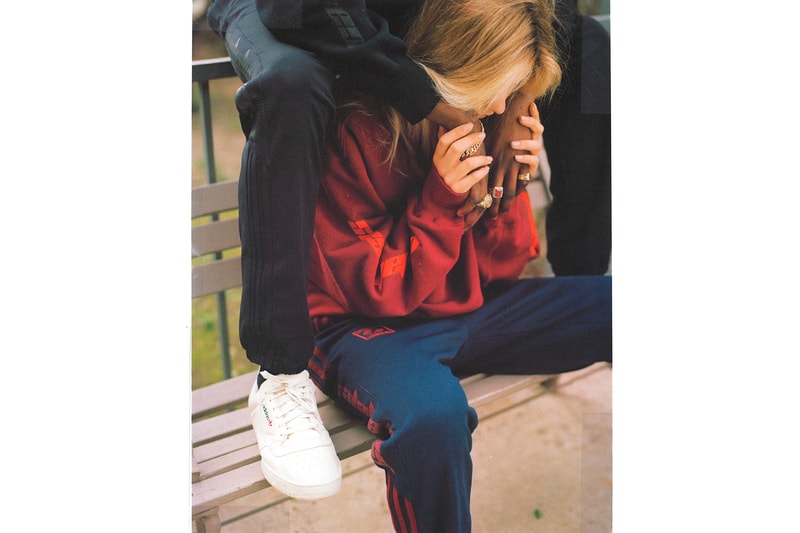
Adidas Calabasas Font . This font is a geometric sans serif font family that has been the basis for the adidas logo font. Create a text effect adidas blue space 3d with our online custom font generator. But as of right now, these. Archive of freely downloadable fonts. Rather, his feature a mysterious side detail in the form of a pagal font calabasas print, as well as a new adidas calabasas logo next to the standard adidas logo. Known for their shoes, clothing, and accessories, the german. Browse by alphabetical listing, by style, by author or by popularity. Free adidas fonts fit for every sports fan. Unleash your design potential today! The lowercase letters in the adidas logo are exclusively in this font style. Transform your text into captivating masterpieces with our. Adidas design and logo uses avant garde gothic itc font family. Explore adidas fonts at myfonts. Adidas font is an iconic sans serif font which is widely associated with one of the most renowned fashion brands worldwide: Adidas uses the font “itc avant garde gothic” for its logo.
Create a text effect adidas blue space 3d with our online custom font generator. Adidas uses the font “itc avant garde gothic” for its logo. Unleash your design potential today! Known for their shoes, clothing, and accessories, the german. Adidas font is an iconic sans serif font which is widely associated with one of the most renowned fashion brands worldwide: Archive of freely downloadable fonts. Explore adidas fonts at myfonts. Adidas design and logo uses avant garde gothic itc font family. Discover a world of captivating typography for your creative projects. The lowercase letters in the adidas logo are exclusively in this font style.
Adidas Calabasas Font Create a text effect adidas blue space 3d with our online custom font generator. Known for their shoes, clothing, and accessories, the german. Explore adidas fonts at myfonts. Unleash your design potential today! Adidas font is an iconic sans serif font which is widely associated with one of the most renowned fashion brands worldwide: Adidas uses the font “itc avant garde gothic” for its logo. This font is a geometric sans serif font family that has been the basis for the adidas logo font. Archive of freely downloadable fonts. Create a text effect adidas blue space 3d with our online custom font generator. Adidas design and logo uses avant garde gothic itc font family. Free adidas fonts fit for every sports fan. Discover a world of captivating typography for your creative projects. Browse by alphabetical listing, by style, by author or by popularity. The lowercase letters in the adidas logo are exclusively in this font style. Transform your text into captivating masterpieces with our. But as of right now, these.
adidas Yeezy Powerphase Calabasas CQ1693, Brancobranco ou branco, 6 Adidas Calabasas Font Rather, his feature a mysterious side detail in the form of a pagal font calabasas print, as well as a new adidas calabasas logo next to the standard adidas logo. Browse by alphabetical listing, by style, by author or by popularity. Adidas font is an iconic sans serif font which is widely associated with one of the most renowned fashion. Adidas Calabasas Font.
Adidas Calabasas Logo Adidas Calabasas Font This font is a geometric sans serif font family that has been the basis for the adidas logo font. But as of right now, these. Rather, his feature a mysterious side detail in the form of a pagal font calabasas print, as well as a new adidas calabasas logo next to the standard adidas logo. Known for their shoes, clothing,. Adidas Calabasas Font.
Adidas Calabasas Logo Adidas Calabasas Font Rather, his feature a mysterious side detail in the form of a pagal font calabasas print, as well as a new adidas calabasas logo next to the standard adidas logo. Adidas design and logo uses avant garde gothic itc font family. Free adidas fonts fit for every sports fan. But as of right now, these. Transform your text into captivating. Adidas Calabasas Font.
Adidas Yeezy Calabasas Powerphase Reservations Now Open XXL Adidas Calabasas Font Adidas font is an iconic sans serif font which is widely associated with one of the most renowned fashion brands worldwide: Archive of freely downloadable fonts. Rather, his feature a mysterious side detail in the form of a pagal font calabasas print, as well as a new adidas calabasas logo next to the standard adidas logo. Discover a world of. Adidas Calabasas Font.
Adidas Font Download Hyperpix Adidas Calabasas Font Explore adidas fonts at myfonts. Discover a world of captivating typography for your creative projects. Archive of freely downloadable fonts. This font is a geometric sans serif font family that has been the basis for the adidas logo font. But as of right now, these. Adidas design and logo uses avant garde gothic itc font family. Create a text effect. Adidas Calabasas Font.
Kanye West Hints at New adidas Calabasas Sneaker and Apparel Hypebeast Adidas Calabasas Font Explore adidas fonts at myfonts. Transform your text into captivating masterpieces with our. Adidas uses the font “itc avant garde gothic” for its logo. Create a text effect adidas blue space 3d with our online custom font generator. Unleash your design potential today! The lowercase letters in the adidas logo are exclusively in this font style. This font is a. Adidas Calabasas Font.
adidas Calabasas Powerphase (yeezy) 1,980.00 en Mercado Libre Adidas Calabasas Font Rather, his feature a mysterious side detail in the form of a pagal font calabasas print, as well as a new adidas calabasas logo next to the standard adidas logo. This font is a geometric sans serif font family that has been the basis for the adidas logo font. Discover a world of captivating typography for your creative projects. Unleash. Adidas Calabasas Font.
adidas Yeezy Calabasas Powerphase Grey Store List Adidas Calabasas Font Discover a world of captivating typography for your creative projects. The lowercase letters in the adidas logo are exclusively in this font style. Adidas font is an iconic sans serif font which is widely associated with one of the most renowned fashion brands worldwide: Adidas design and logo uses avant garde gothic itc font family. This font is a geometric. Adidas Calabasas Font.
adidas Yeezy Powerphase Calabasas 'OG' CQ1693 CQ1693 Novelship Adidas Calabasas Font This font is a geometric sans serif font family that has been the basis for the adidas logo font. Browse by alphabetical listing, by style, by author or by popularity. Known for their shoes, clothing, and accessories, the german. Archive of freely downloadable fonts. The lowercase letters in the adidas logo are exclusively in this font style. Rather, his feature. Adidas Calabasas Font.